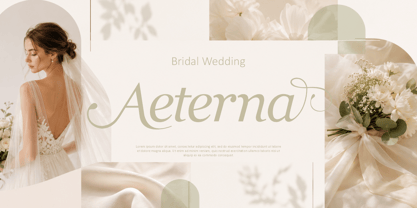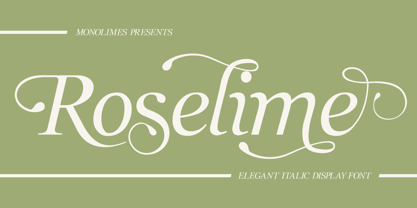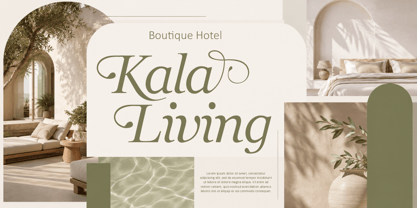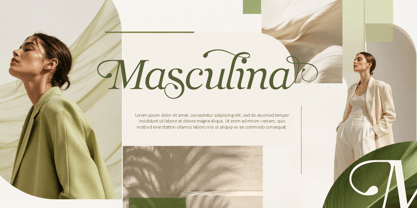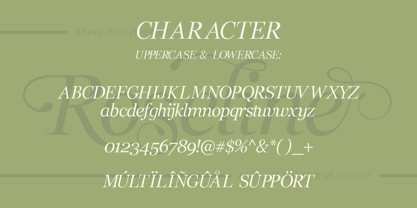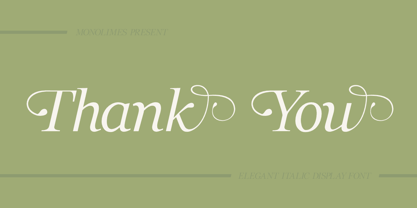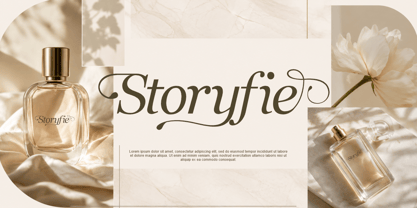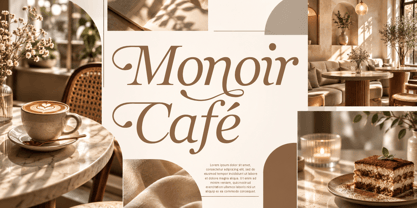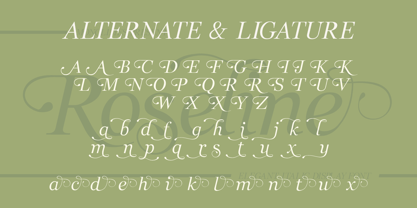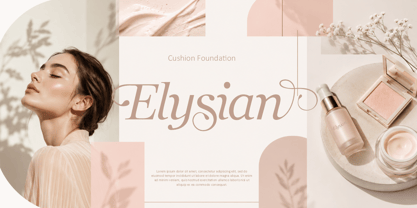
Roselime
by Monolimes
The Roselime Font Family was designed by Brainy Javanika Putra and published by Monolimes. Roselime contains 1 styles. More about this family
Roselime is an elegant italic display typeface with a graceful, feminine character and expressive calligraphic details. Designed to bring a sophisticated and romantic touch to your projects, Roselime combines flowing letterforms with distinctive swashes, making every word feel refined and memorable.
Perfect for fashion branding, beauty and cosmetics, perfume packaging, wedding stationery, editorial layouts, boutique hotels, premium cafés, logos, invitations, social media graphics, and luxury product designs.
With its dramatic curves and stylish personality, Roselime works beautifully as a statement headline, brand name, or elegant wordmark. Pair it with a clean serif or modern sans-serif to create a fresh contemporary contrast.
Designers: Brainy Javanika Putra
Foundry: Monolimes